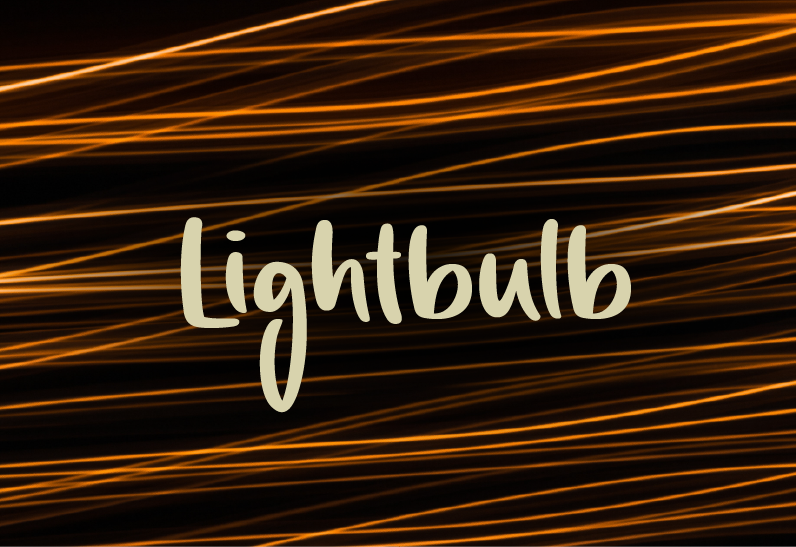
Preview and download Lightbulb Font. Created by Shaped Fonts in Script Various styles with Free for personal use license.
*** Visit www.shapedfonts.com/lightbulb to buy the full version (included with a license) *** which also has a wide multilingual support, symbols and numbers. This is Lightbulb, our newest handwritten brush font that is suitable for promotion, stationery, branding, product packaging, and other needs. The full version contains more than 500 glyphs and is perfect for your next work. Visit www.shapedfonts.com/lightbulb to buy the full version (included with a license)! PLEASE NOTE: This font is free for personal use only. If you want to use it commercially, please buy a license on our website: www.shapedfonts.com/lightbulb |